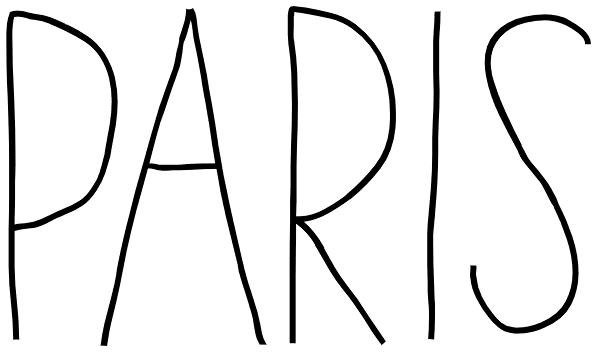
Paris
Paris is an avant-gardist handwritten font by La Goupil Paris with the help of Lafont London. It’s an all-caps thin font, with extended glyphs for many languages. But the little difference of Paris from other handwriting typefaces is the Art Deco...